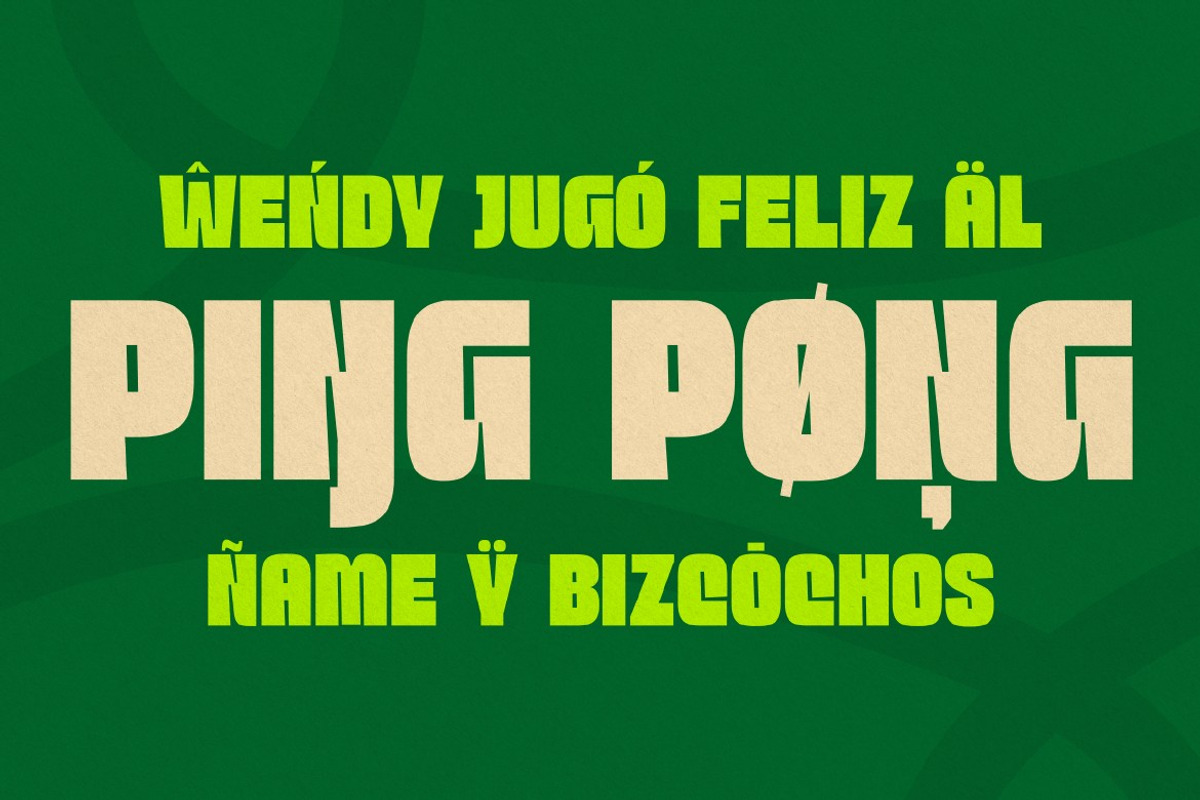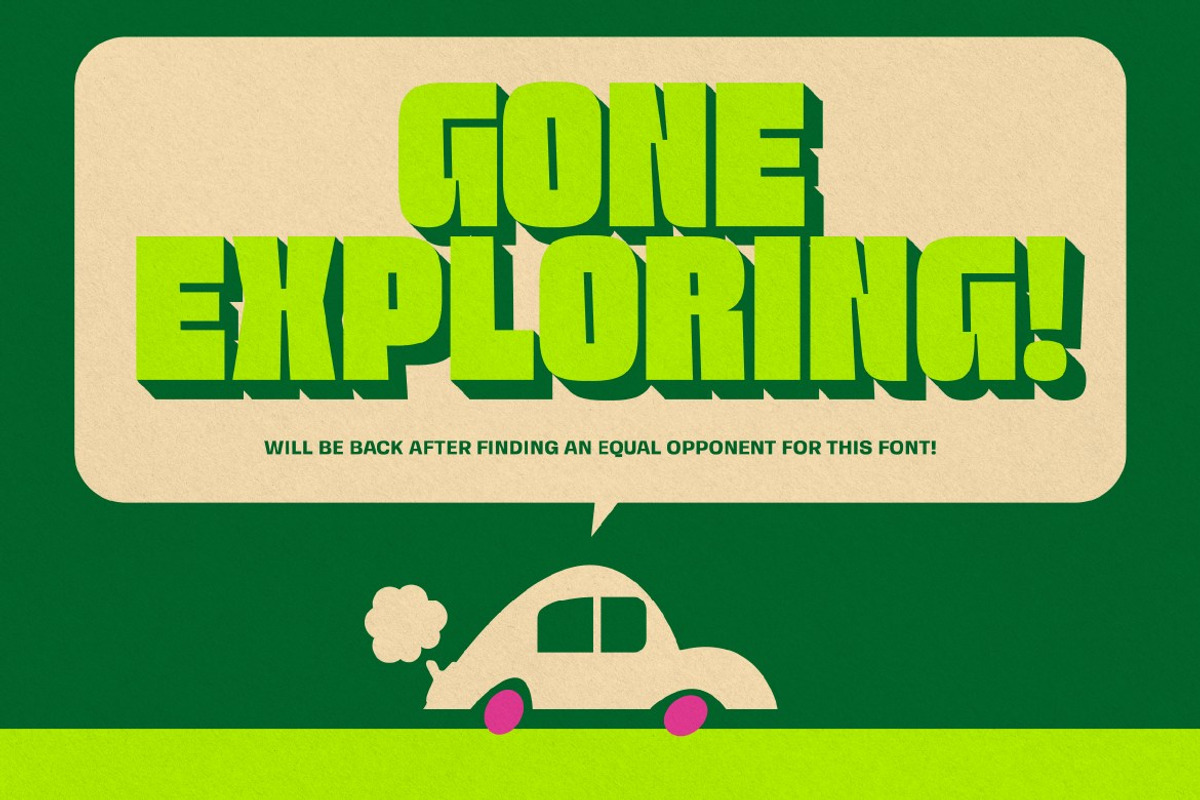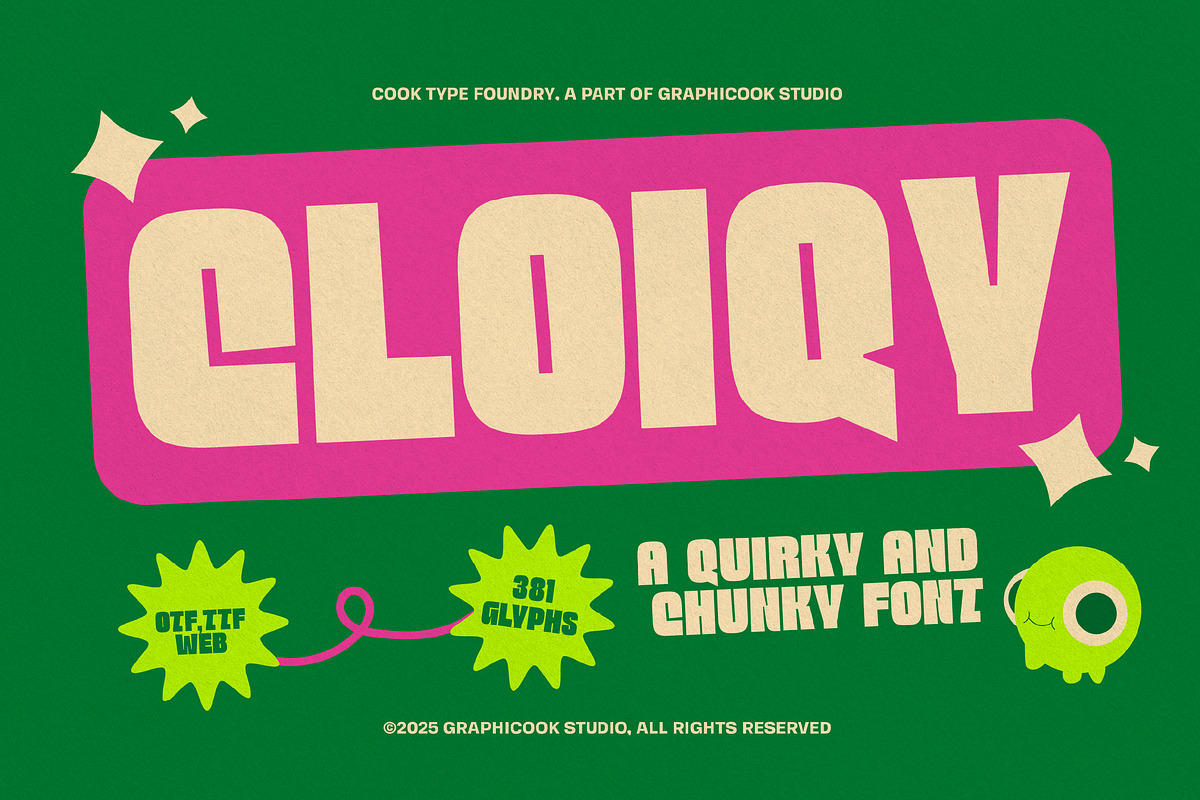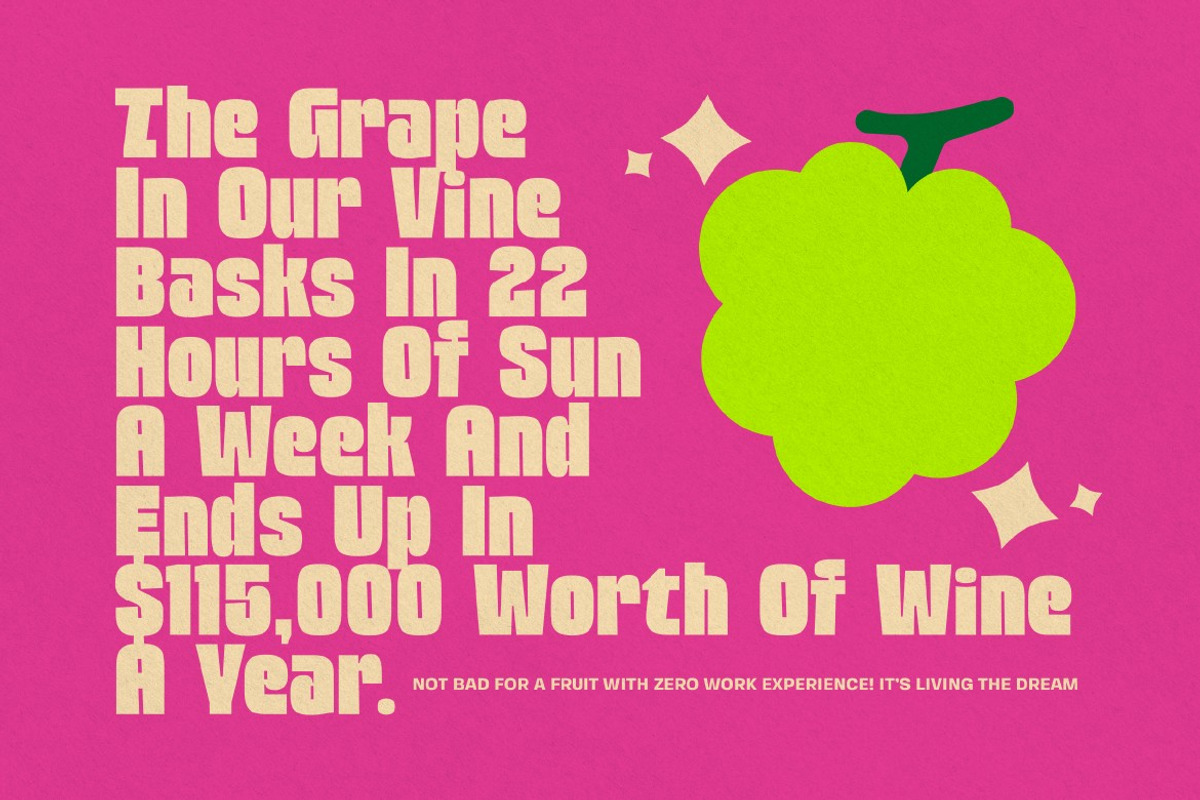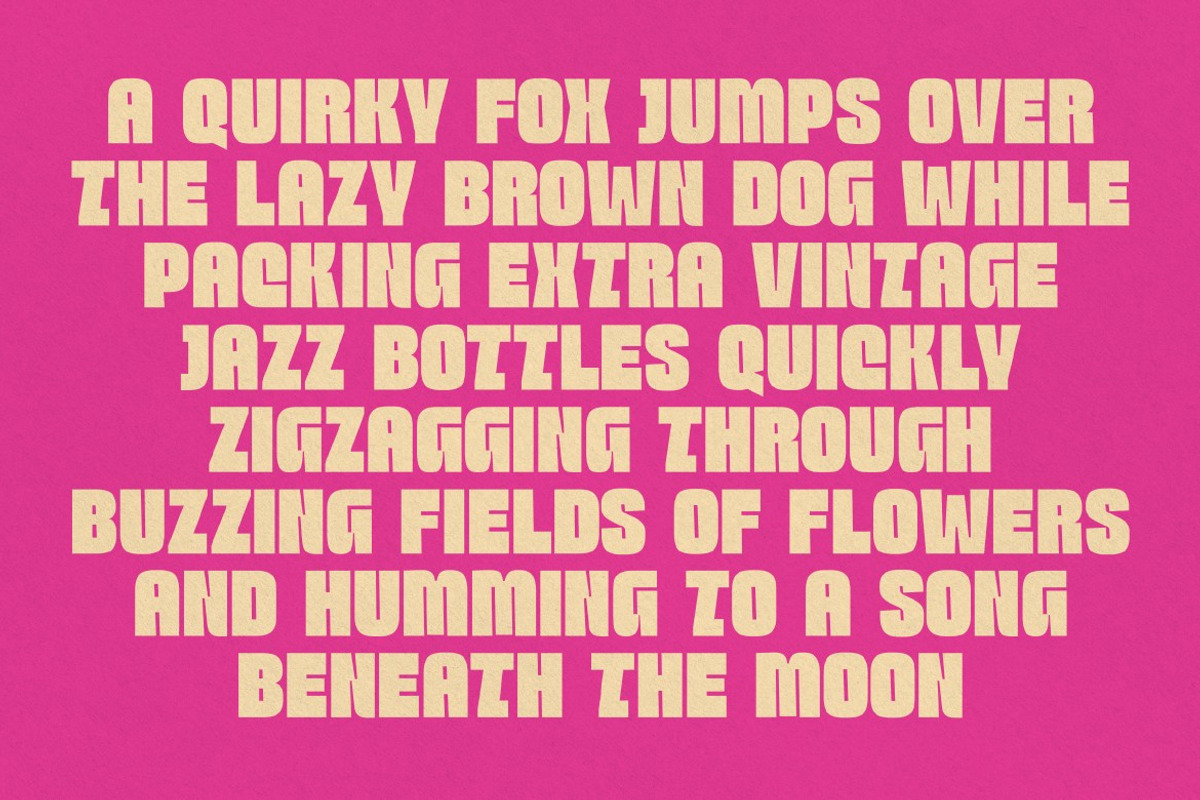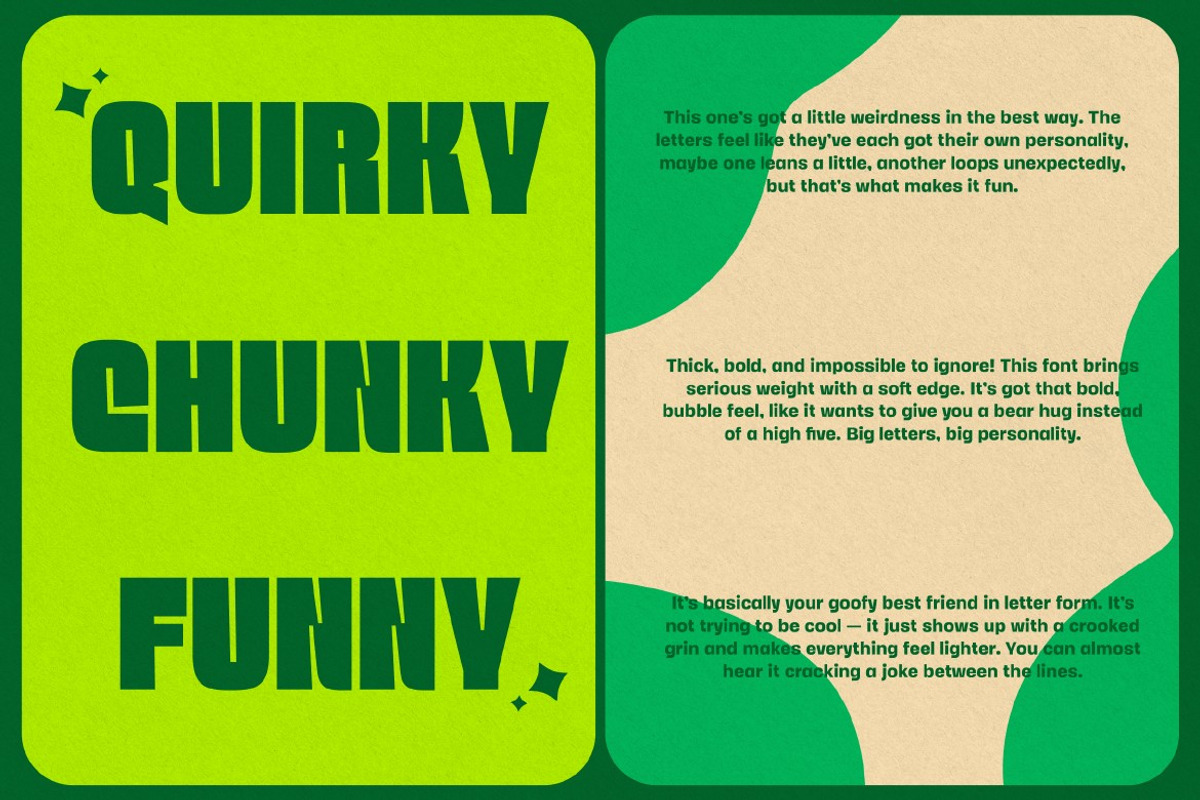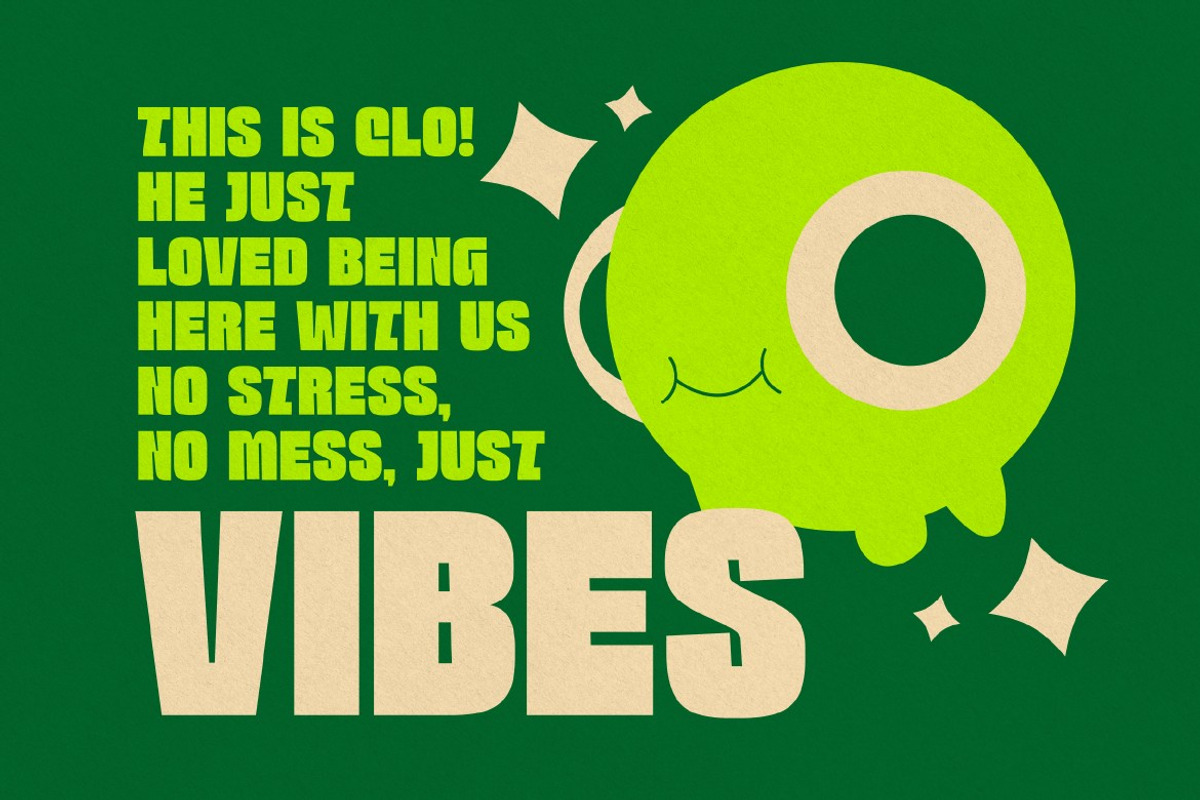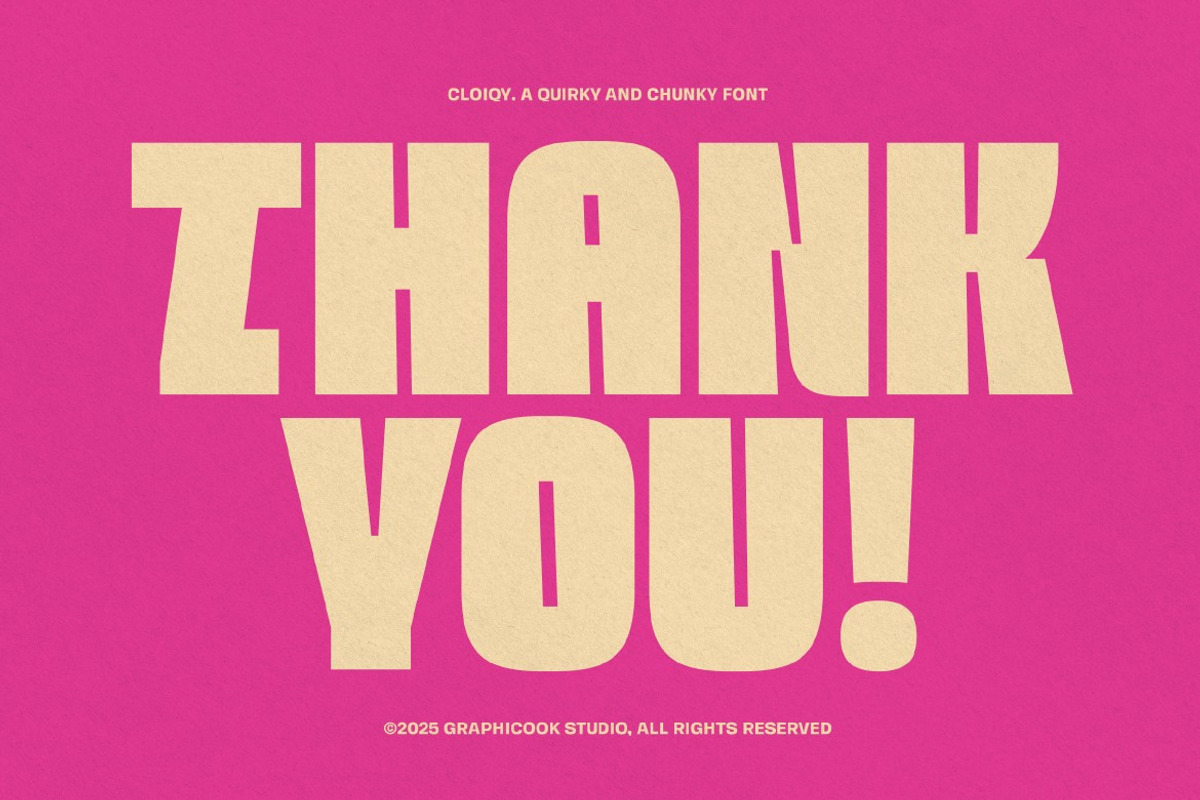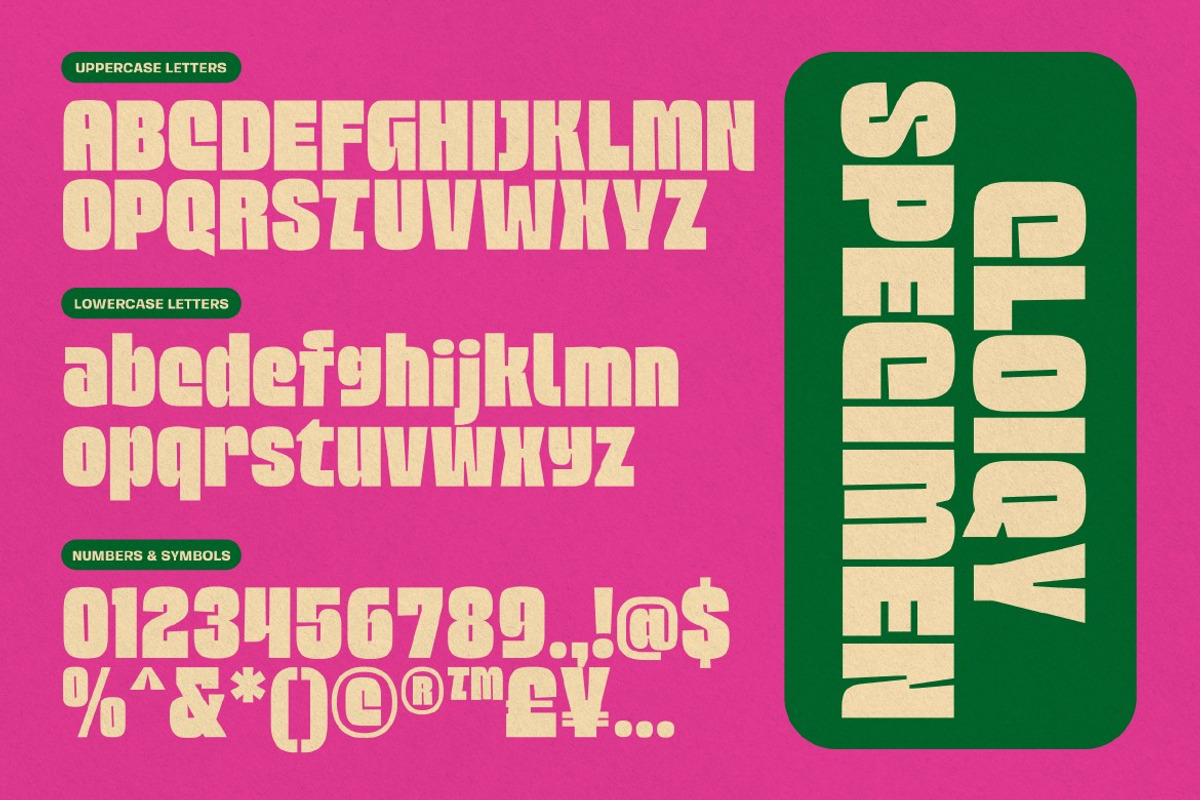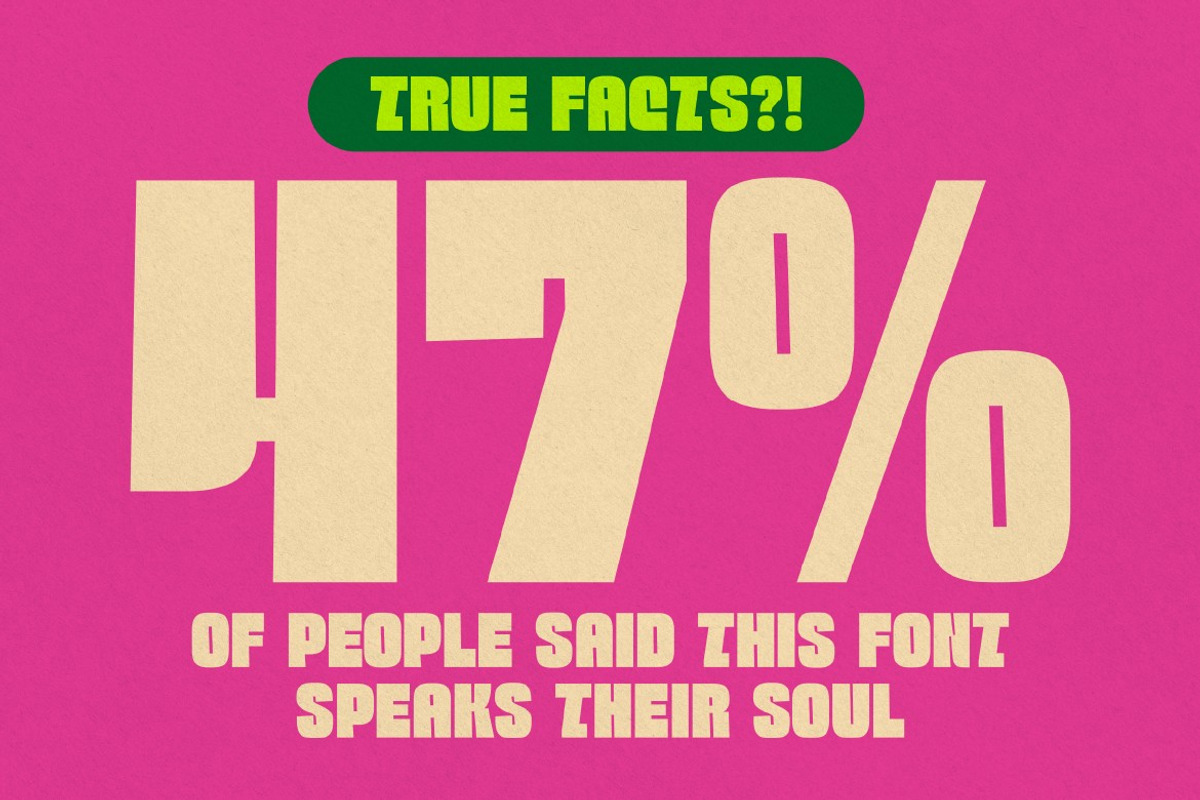
Cloiqy
Cloiqy is a bold display font with a unique and precise character. Its playful yet impactful design makes it perfect for branding, posters, and any project that needs a bold visual statement.
It is perfect for headlines, logotypes, magazines, packaging, quotes, movies, games, cover albums, book covers, and flyers, it's a perfect solution for creating eye-catching designs that stand out in any context.